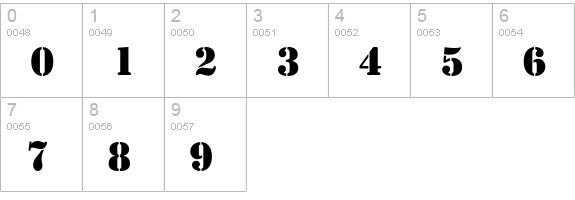
The Stencil font is a classic and versatile typeface that exudes a sense of boldness and modernity. Its distinctive design features clean lines and sharp edges that create a striking visual impact. Perfect for adding a touch of sophistication to any project, the Stencil font is ideal for posters, logos, branding, and more. The best part? This stylish font is available for free download at FontsMarket.com. Embrace the creativity and uniqueness of the Stencil font in your designs today and make a bold statement that will captivate your audience. Don't miss out on the opportunity to elevate your projects with this sleek and eye-catching typeface. Download the Stencil font now and let your creativity shine!